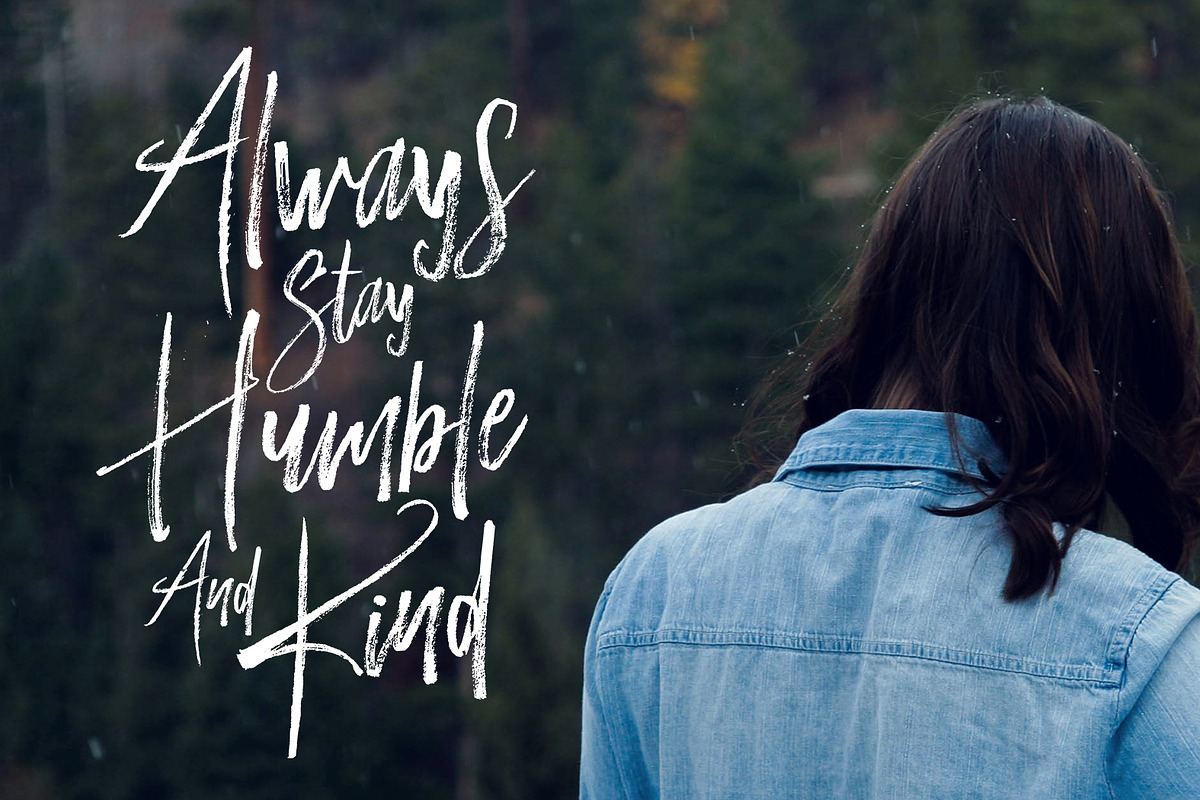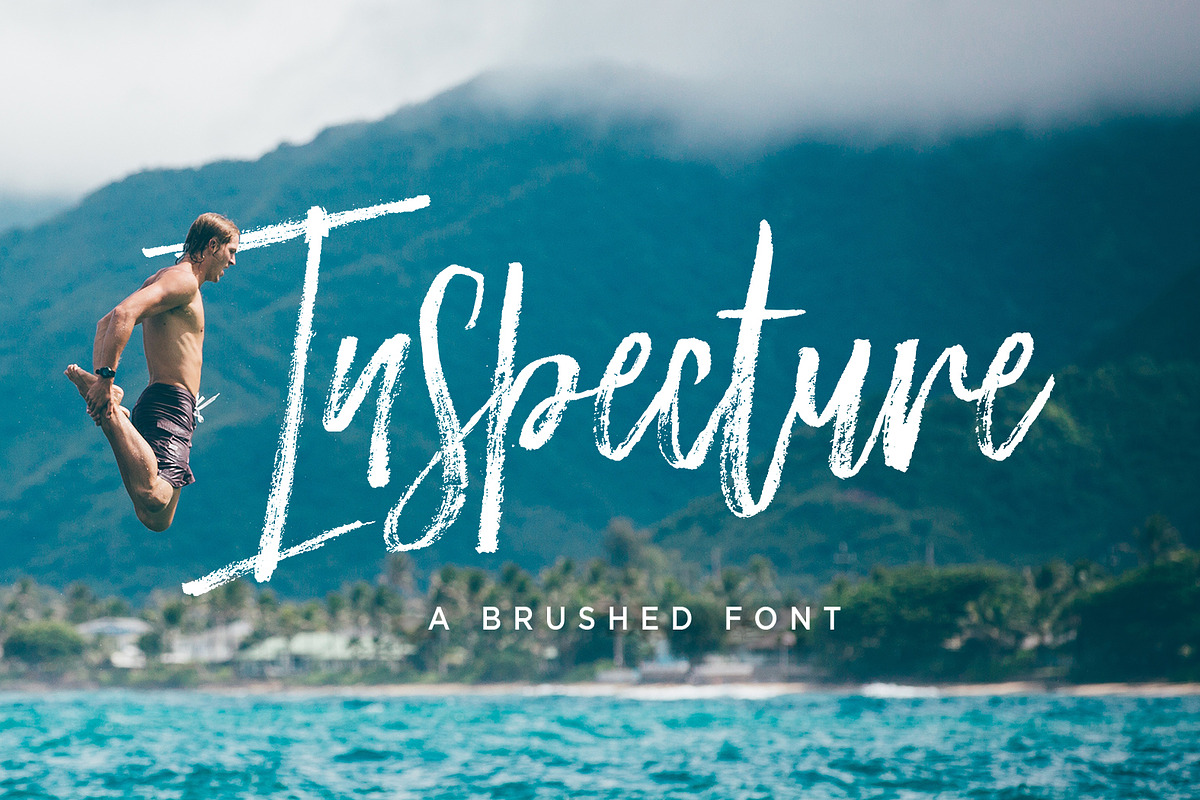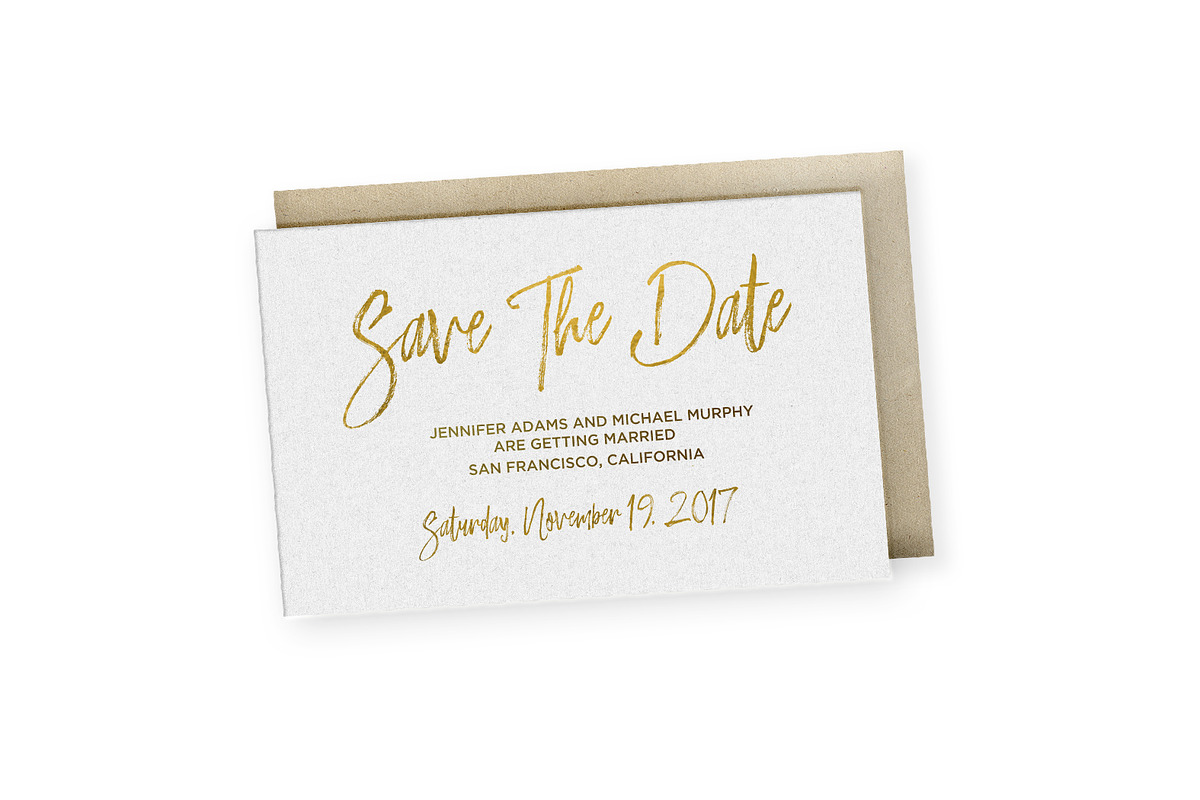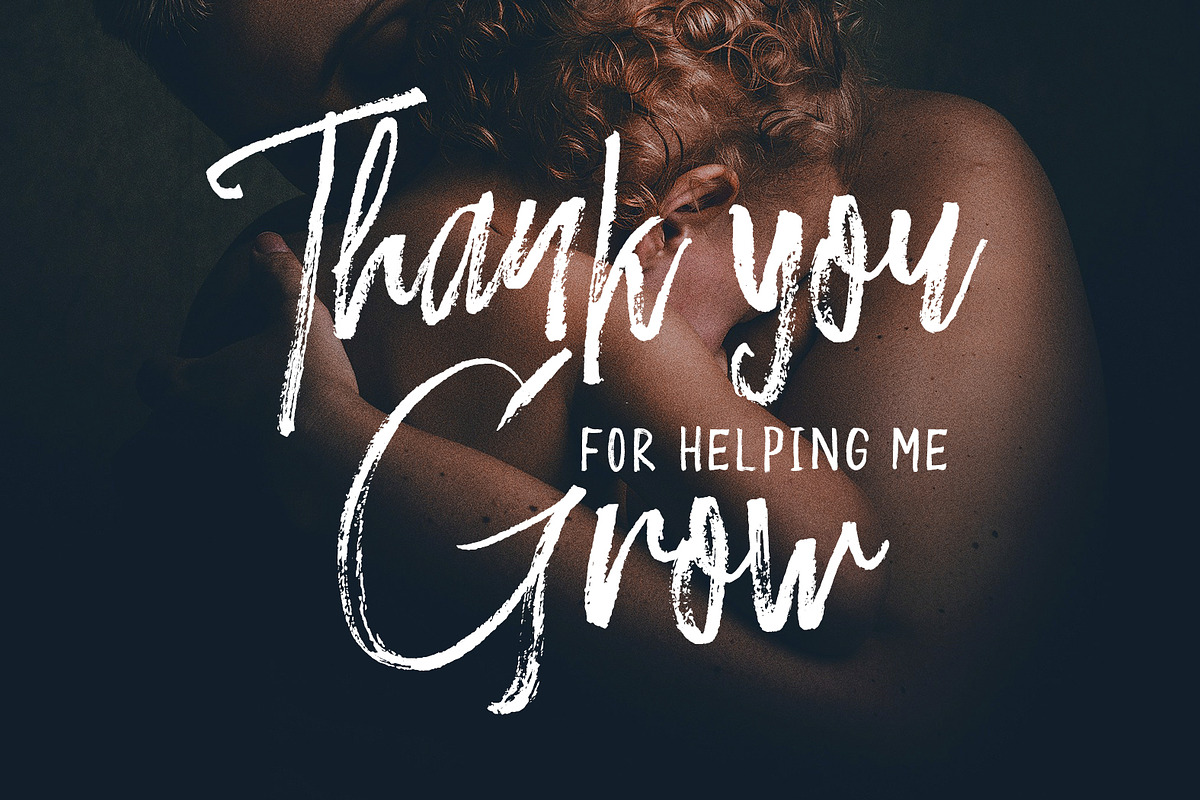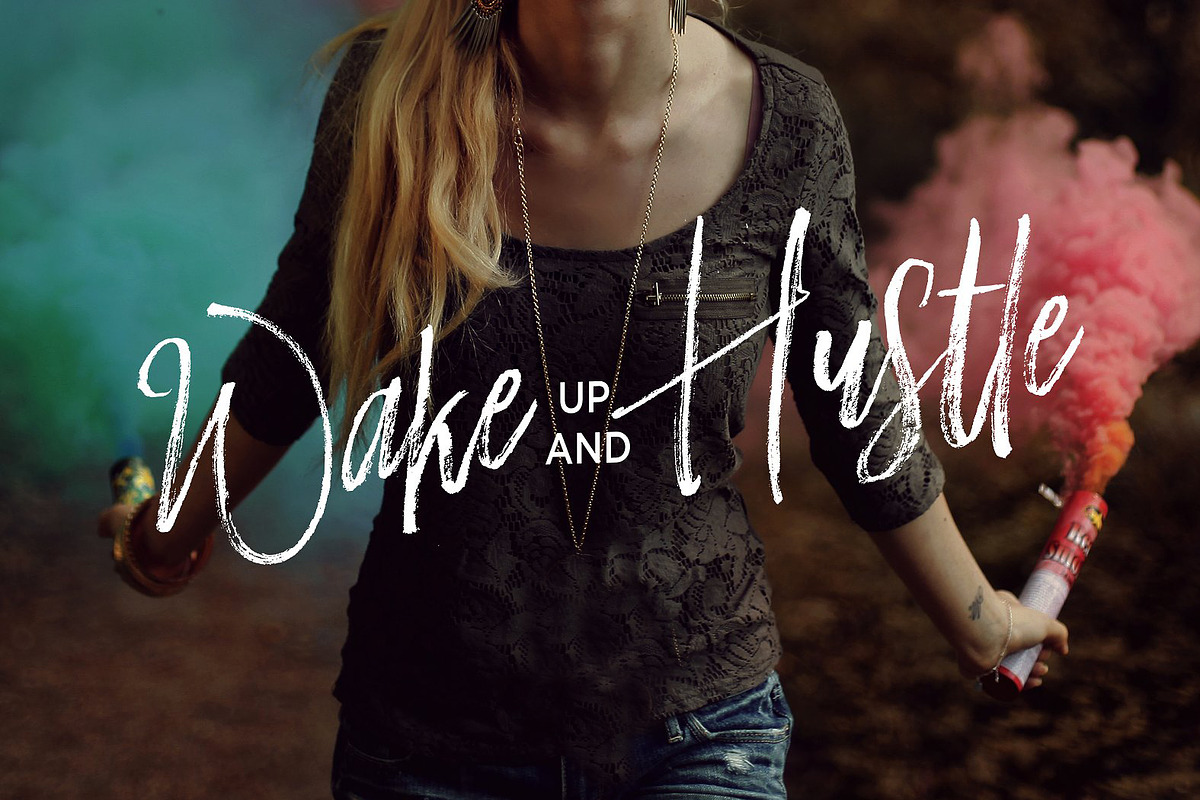
Inspecture Brush Font
Inspecture Brush Font by Dhan Studio is a font selected for branding, posters, packaging, typography.
Why Inspecture Brush Font is worth a look
Inspecture Brush Font by Dhan Studio fits naturally into Branding, posters, packaging, typography.